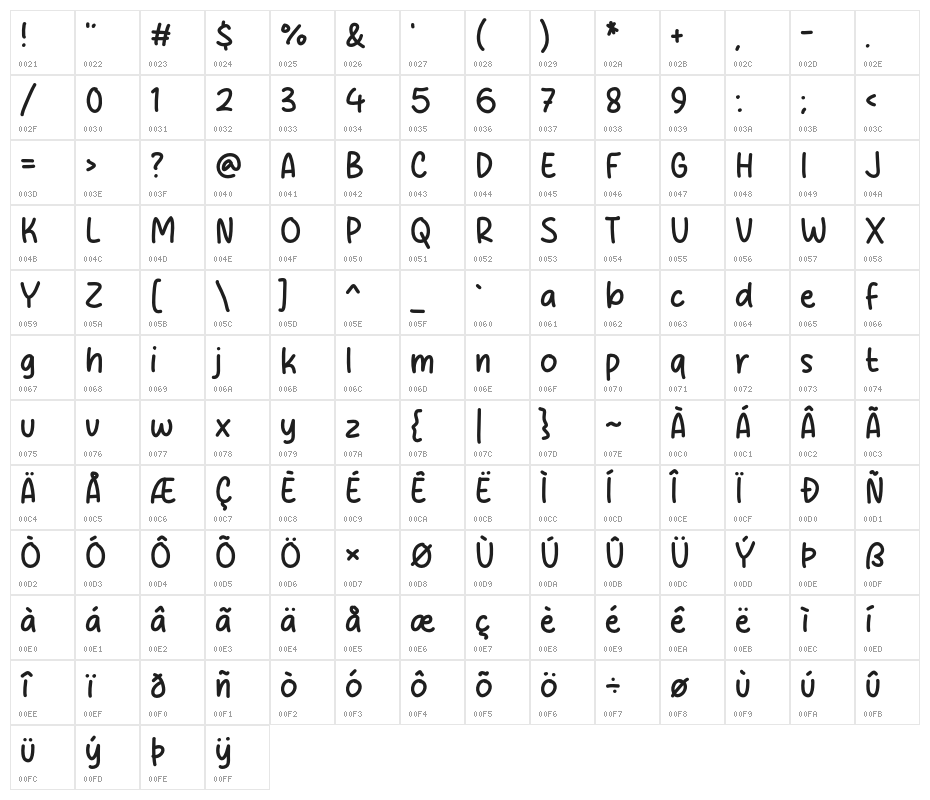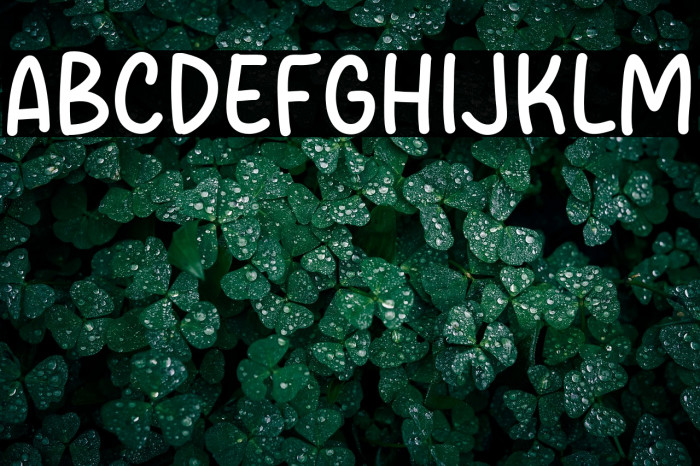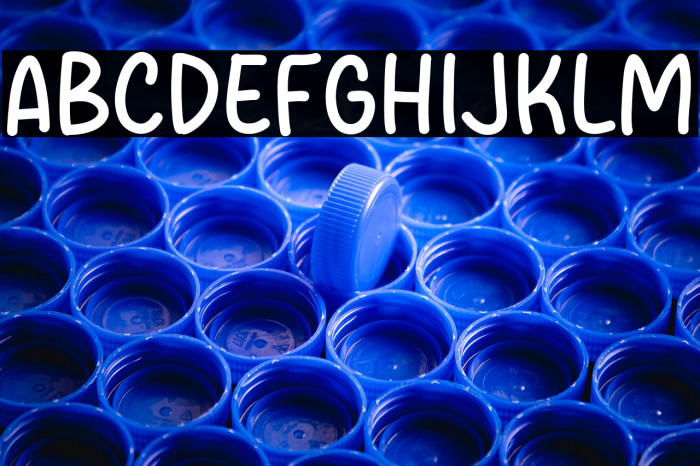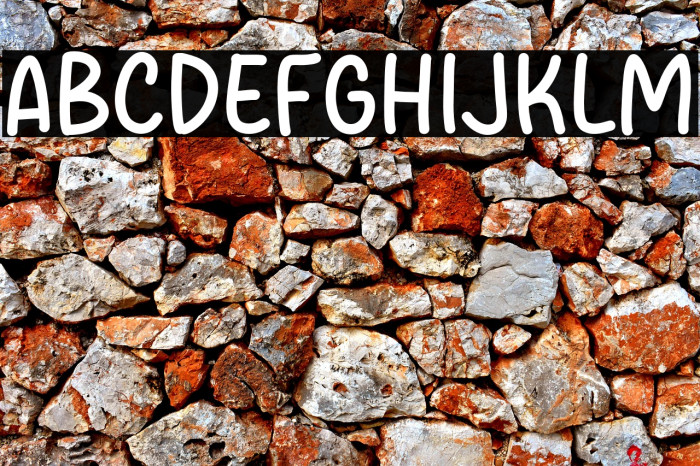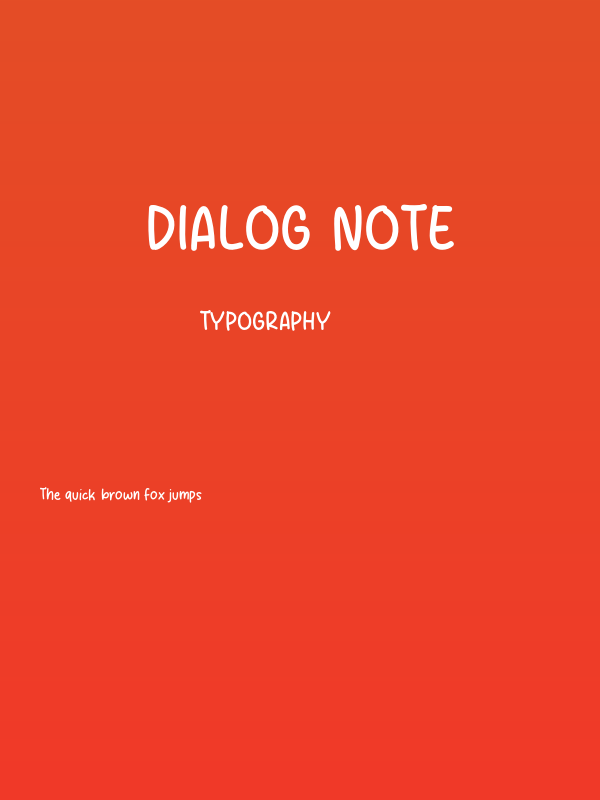
Dialog Note Font
Dialog Note Description
A playful, handwritten font with rounded edges and a casual appearance.
| Overall Style | Casual |
| Use Case | Headlines, Informal text, Branding |
| Proposed Projects | Children's books, casual invitations, friendly branding. |